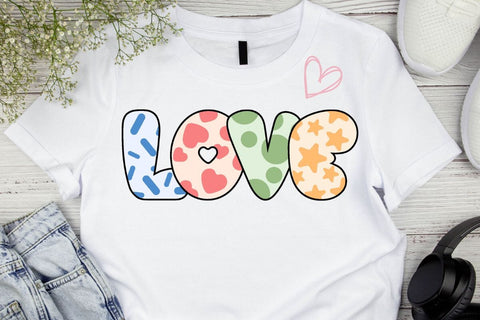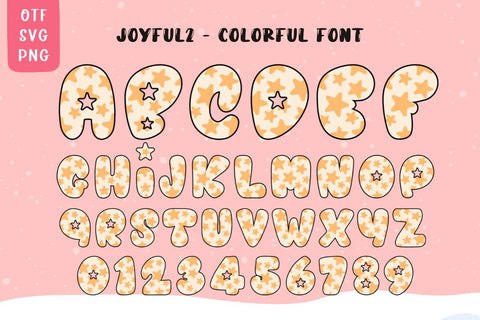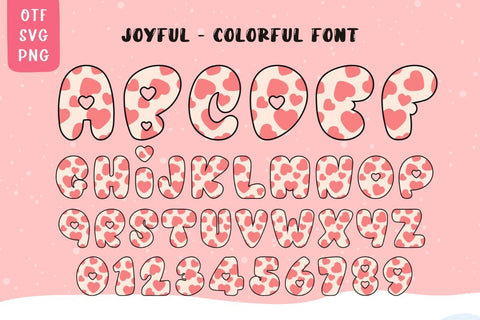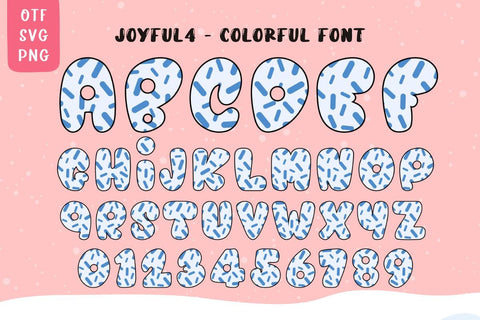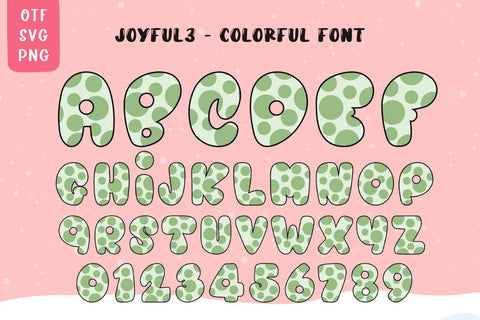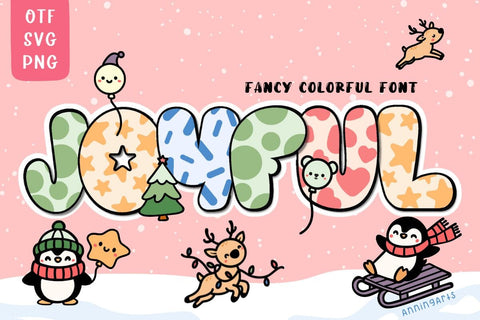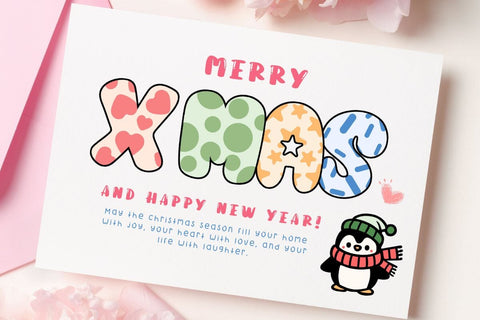
Joyful - Colorful Font
Joyful is a lovely colorful font perfect for all your Christmas-themed projects. You can use it to design products such as banners, content, mugs, cards, shirts, stationery, social media posts, and more!